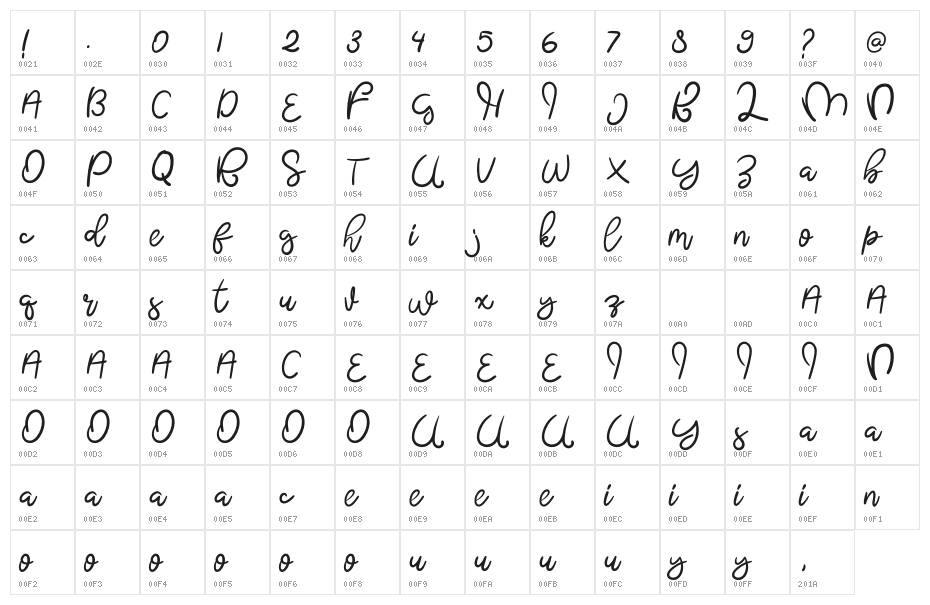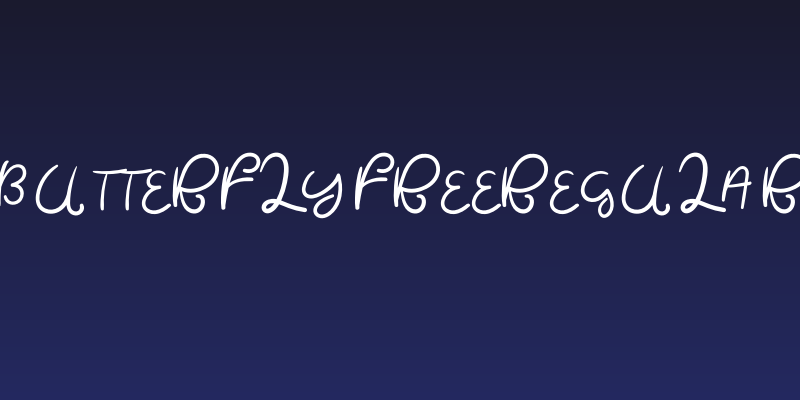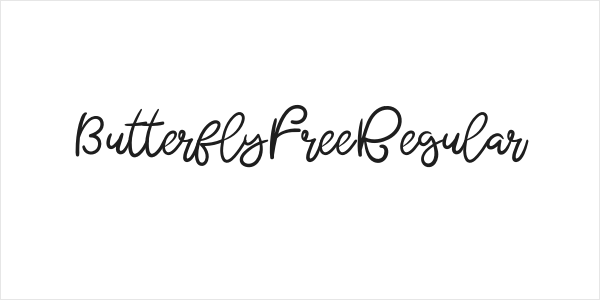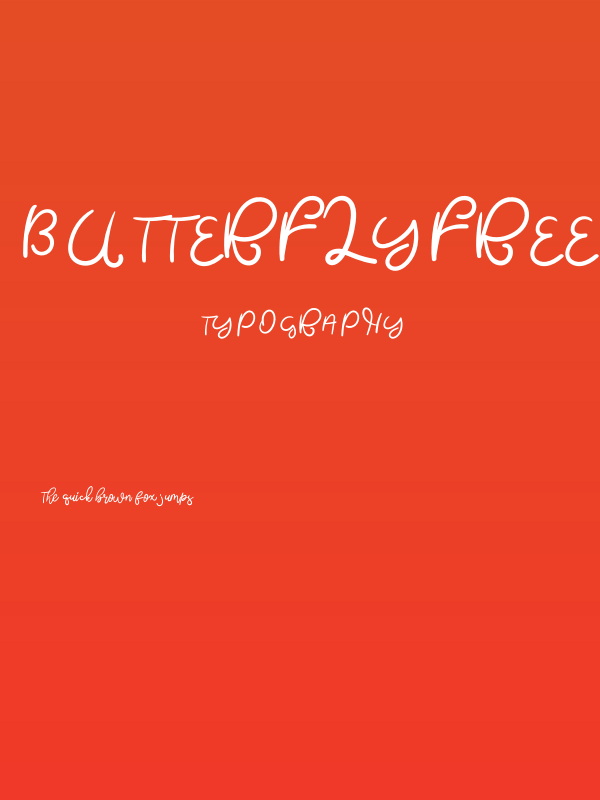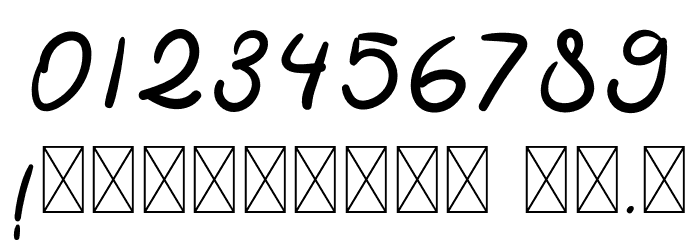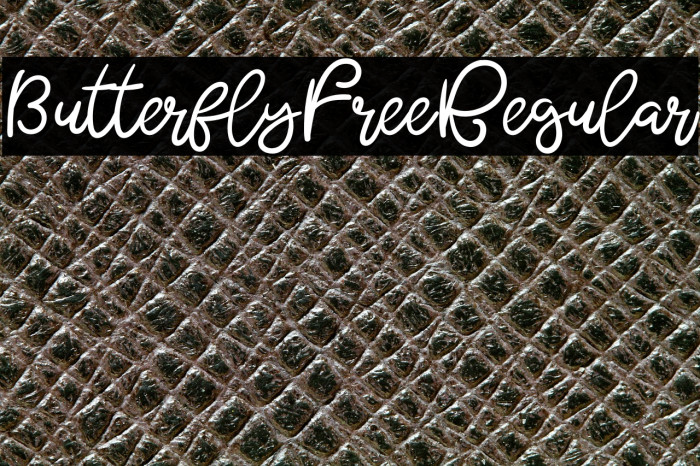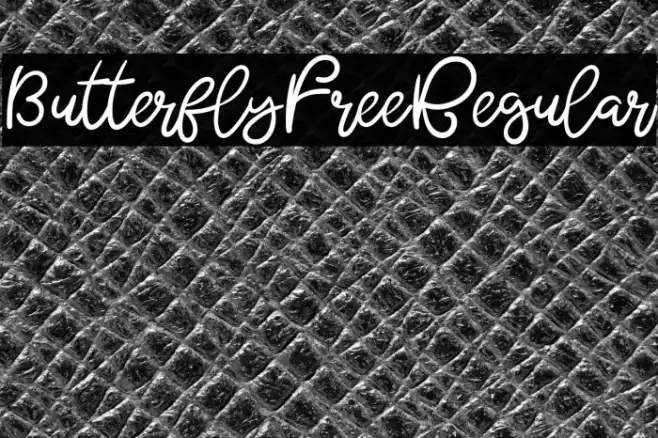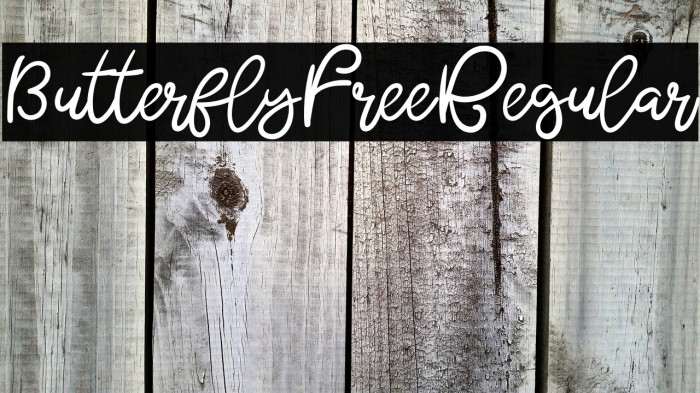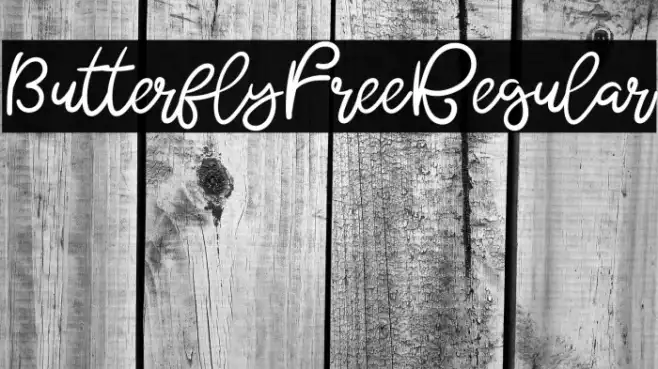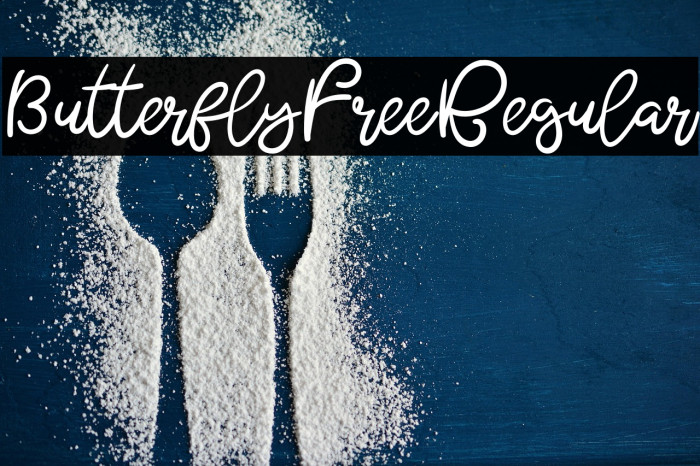
ButterflyFreeRegular Font
ButterflyFreeRegular Description
This font features a playful and whimsical script style, characterized by its fluid and flowing letterforms. The uppercase letters are bold and expressive, with a slight slant that adds to the dynamic feel. The lowercase letters maintain a consistent rhythm, with smooth curves and loops that enhance readability. The numbers are equally stylized, matching the overall aesthetic with their rounded and connected forms. Special characters are integrated seamlessly, maintaining the font's cohesive look. This font exudes a sense of creativity and spontaneity, making it ideal for projects that require a personal and artistic touch.
| Use Case | Logos, Invitations, Creative projects |
| Proposed Projects | Ideal for greeting cards, invitations, branding, and creative projects that require a personal touch. |